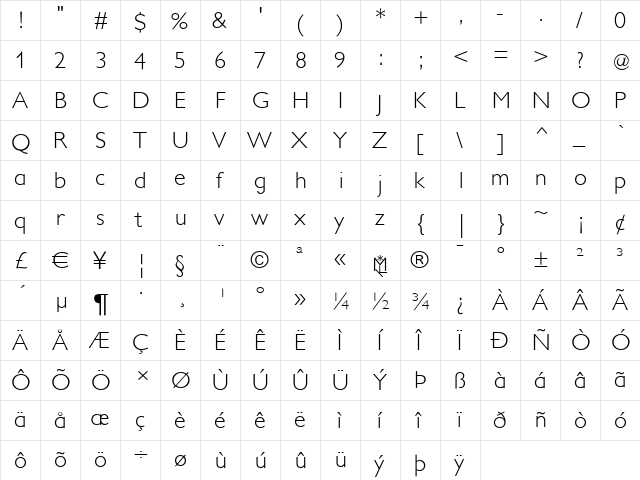
PetitaLight Regular
Design Context for PetitaLight Typeface
PetitaLight is a composed and adaptable typeface that performs quietly and consistently across a wide range of design contexts. Its slender proportions lend an understated elegance to any composition.
Pro Tip: Use PetitaLight in both headline and body roles to test its range before committing to a single application.